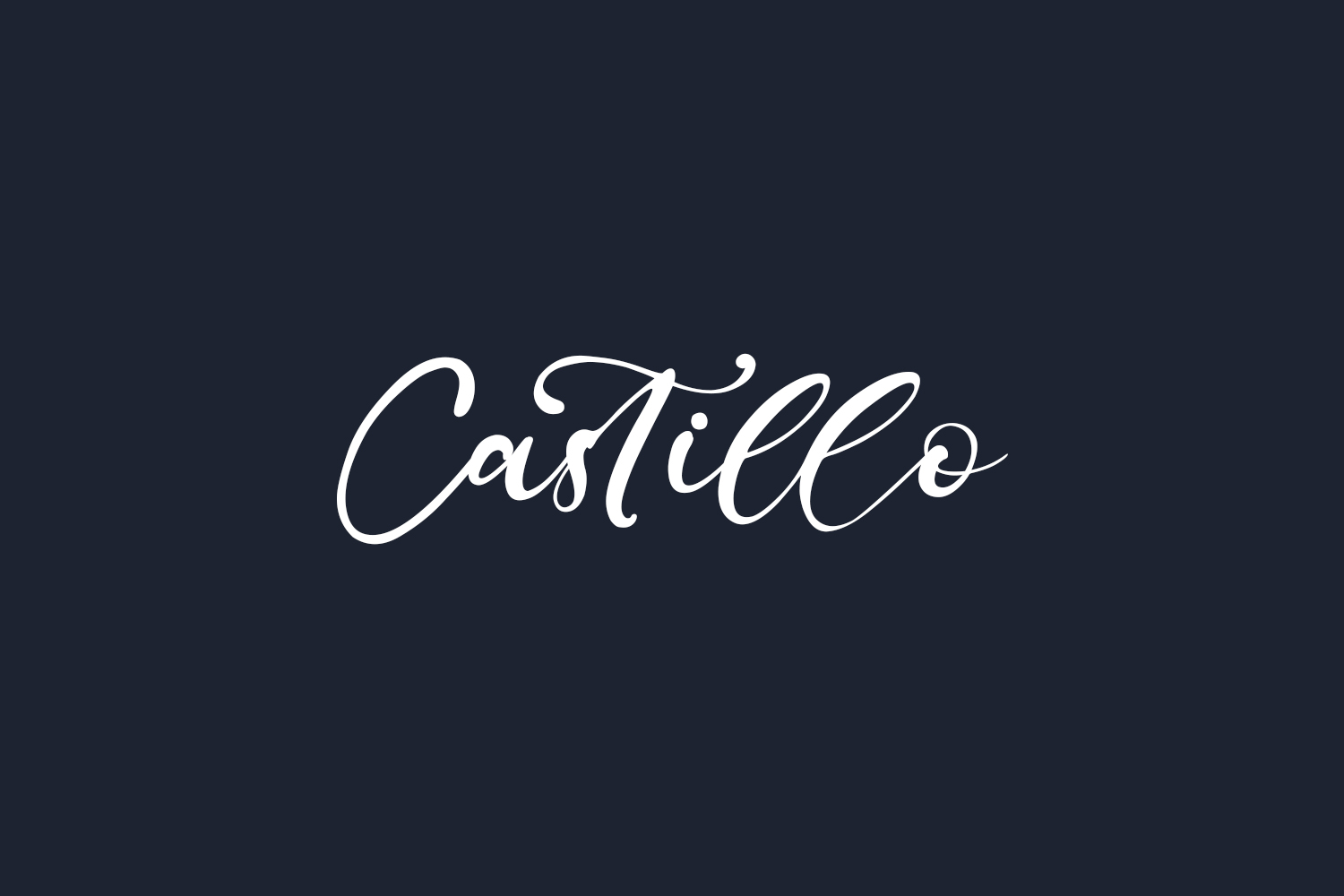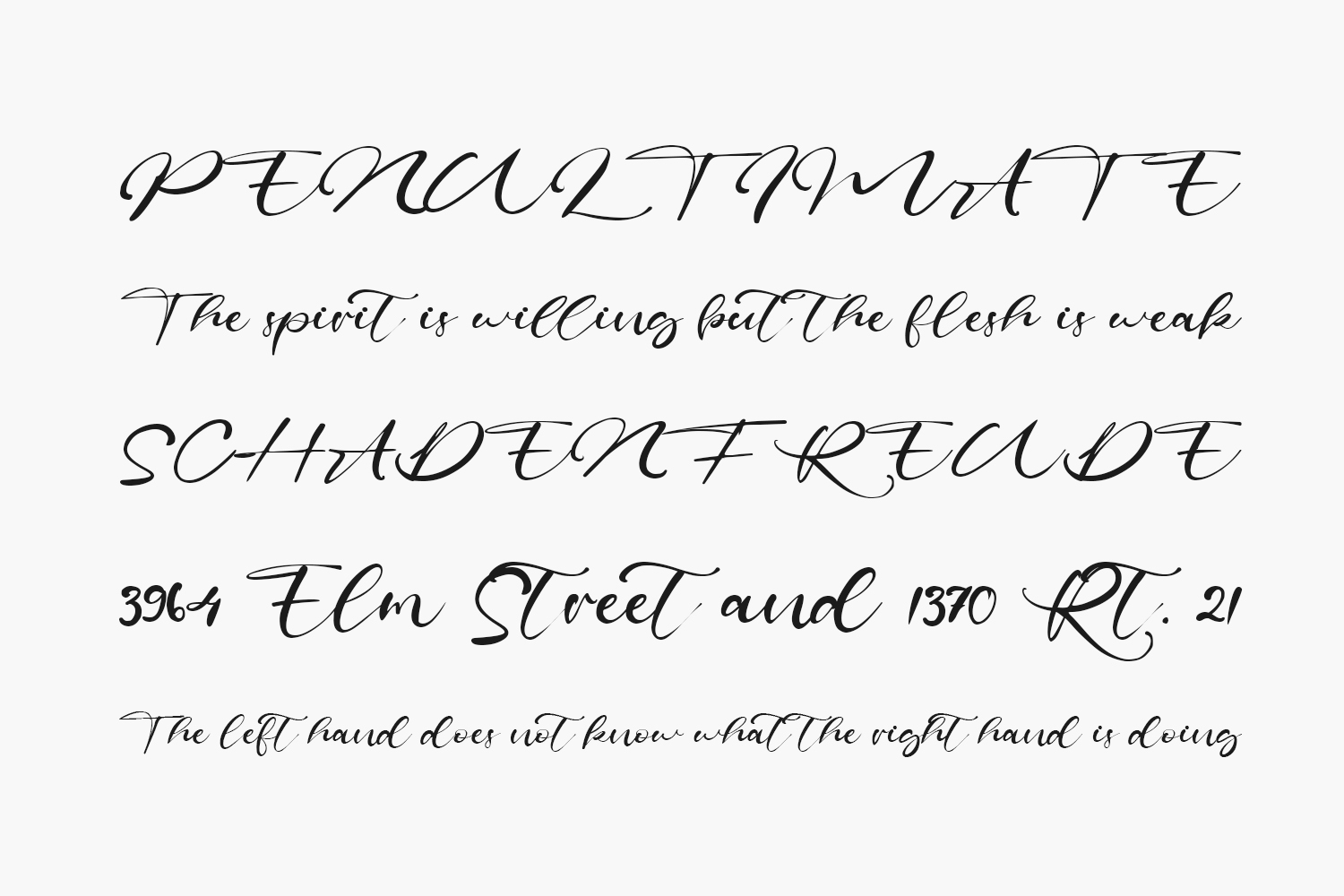
Castillo Free Font is a modern script typeface, suitable for logotype, branding design, logo design, digital lettering arts, t-shirt/apparel, poster, magazine, signs, advertising design, and any design needs. Castillo Free Font was designed by Staircase Studio and is free for personal use only. Please purchase the full version for commercial use.